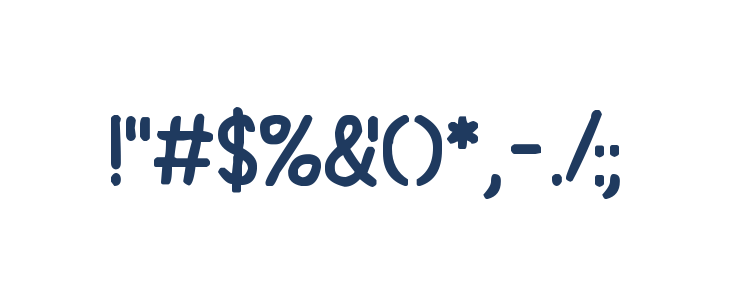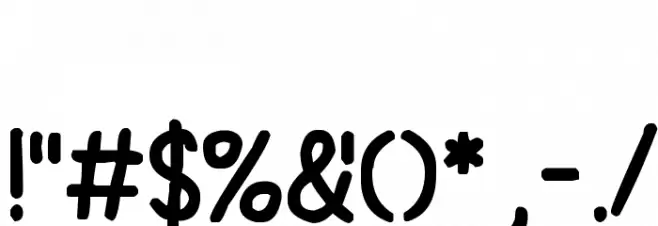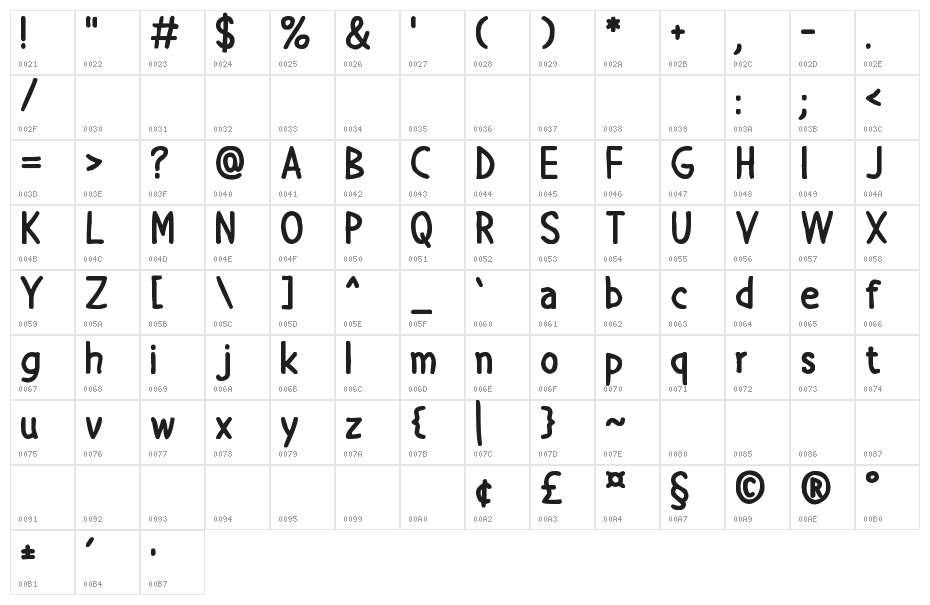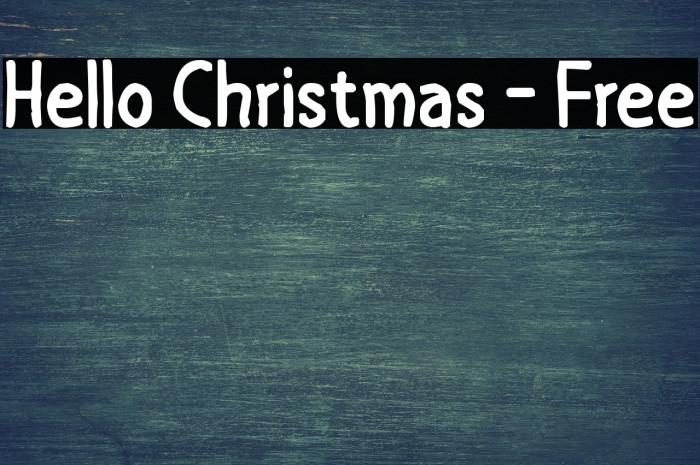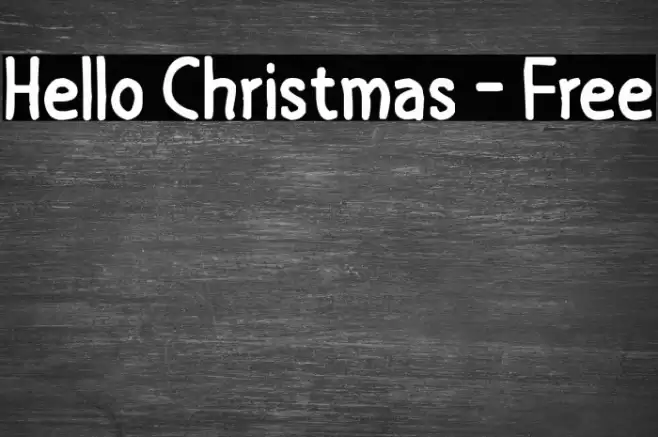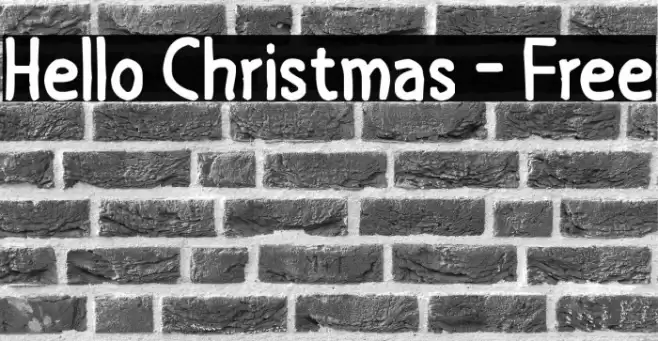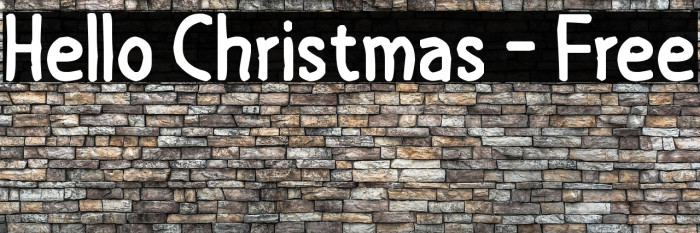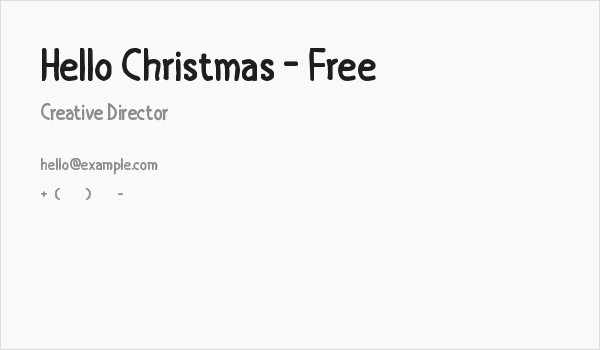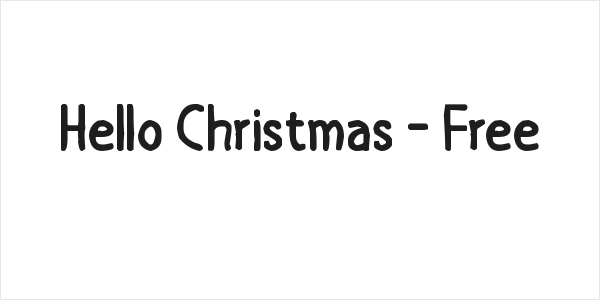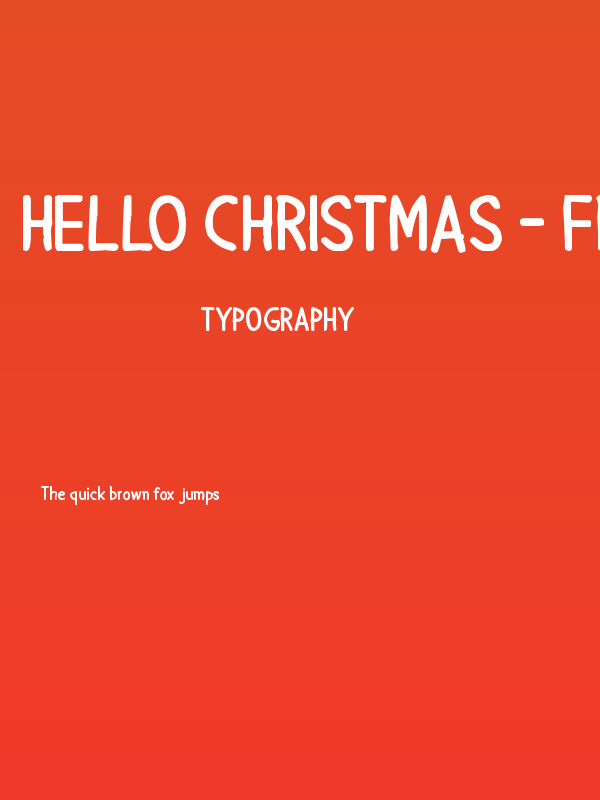
Hello Christmas - Free Font
Hello Christmas - Free Description
This playful and whimsical font features a handwritten style with a casual, friendly appearance. The letters are bold and slightly irregular, giving them a unique and approachable character. The uppercase and lowercase letters maintain a consistent style, with rounded edges and a slight tilt that adds to the font's charm. The numbers and special characters are designed to match the overall aesthetic, making this font versatile for various uses. Its informal style makes it perfect for projects that require a personal touch or a fun, festive vibe.
| Proposed Projects | Ideal for holiday cards, children's books, party invitations, and playful branding. |